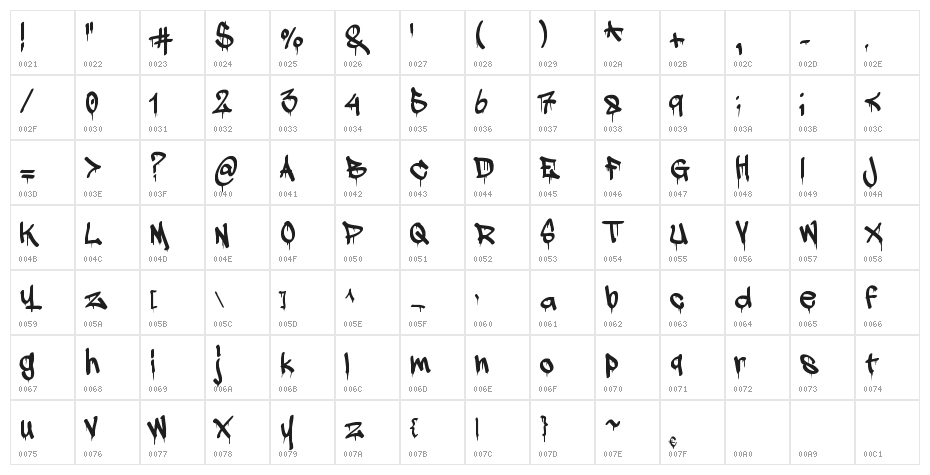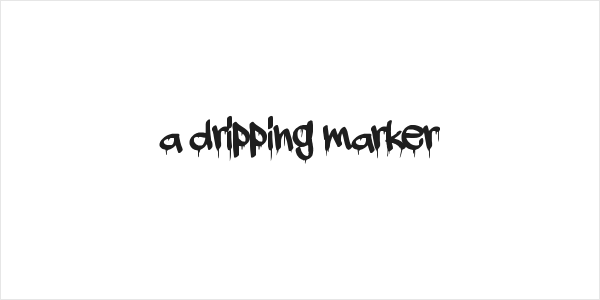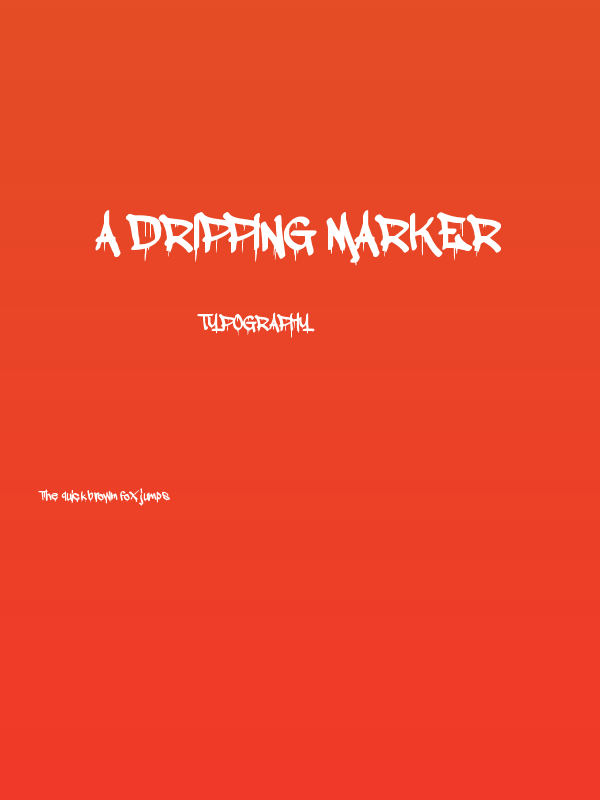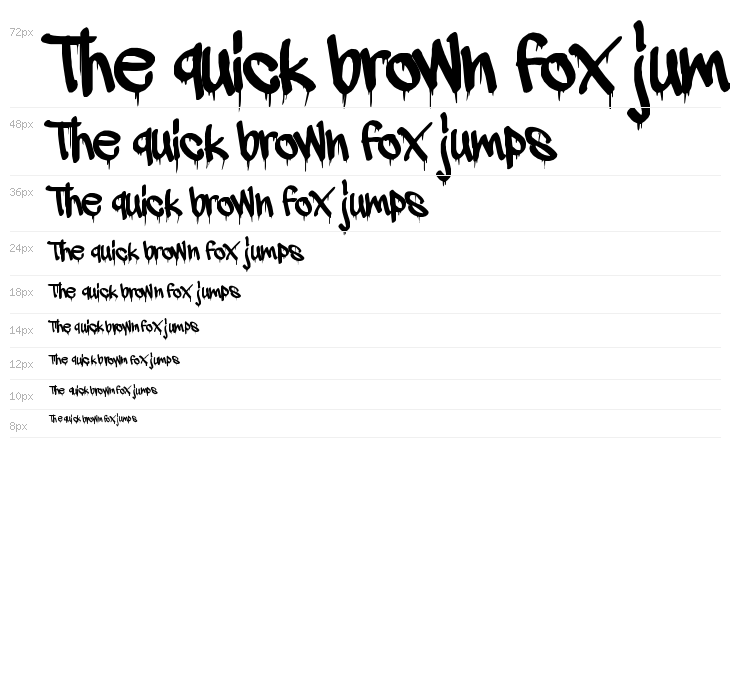
a dripping marker Font
a dripping marker Description
This font exudes a bold, urban aesthetic reminiscent of graffiti art. Each character appears as if it has been spray-painted, with distinctive drips extending from the bottom, adding a dynamic and edgy feel. The letters are irregular and expressive, capturing the essence of street art with a raw, energetic style. The uppercase and lowercase letters maintain a consistent theme, while the numbers and special characters follow suit, ensuring a cohesive look across all elements. This font's unique style makes it stand out, perfect for projects that require a rebellious or artistic touch.
| Overall Style | Urban, Graffiti, Edgy |
| Use Case | Logos, Posters, Album Covers |
| Proposed Projects | Ideal for street art projects, urban-themed posters, music album covers, and edgy branding. |